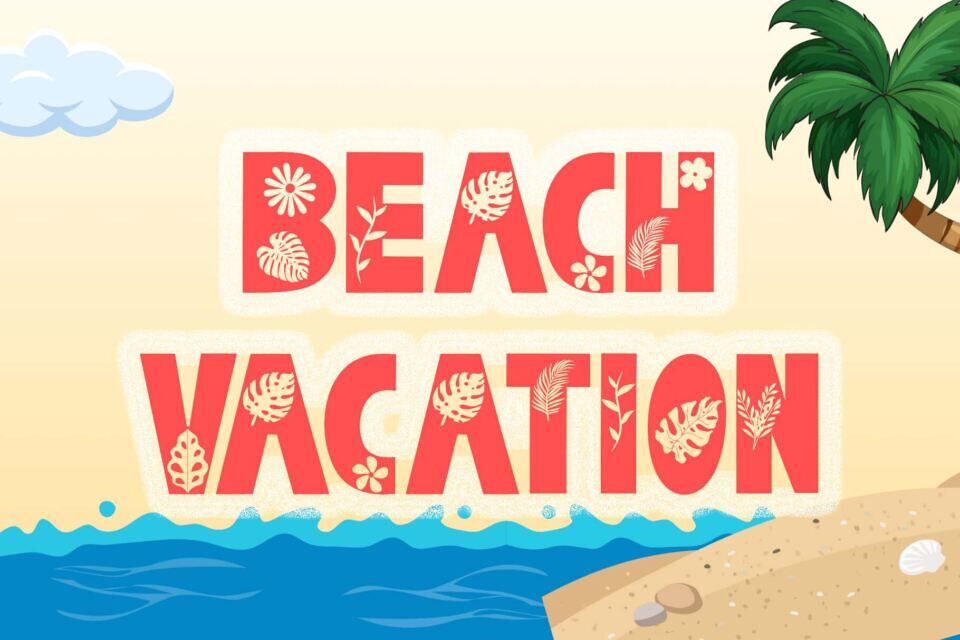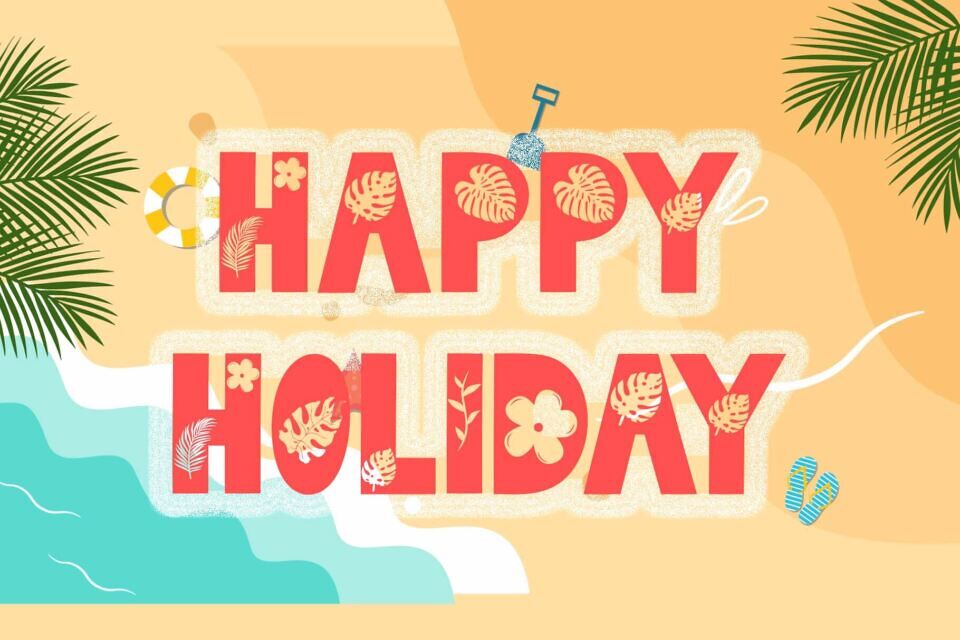
Florida Summer is a unique and playful display font. This font is equipped with uppercase, lowercase, numerals, punctuations and multilingual support.
It is very suitable for use in summer, camping, holiday, vacation, spring, banner, poster, print, branding, logo, sticker and others.